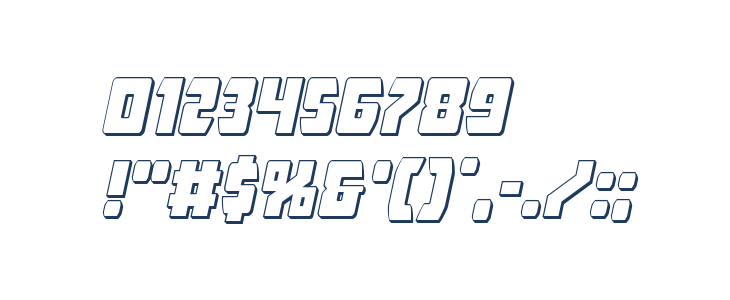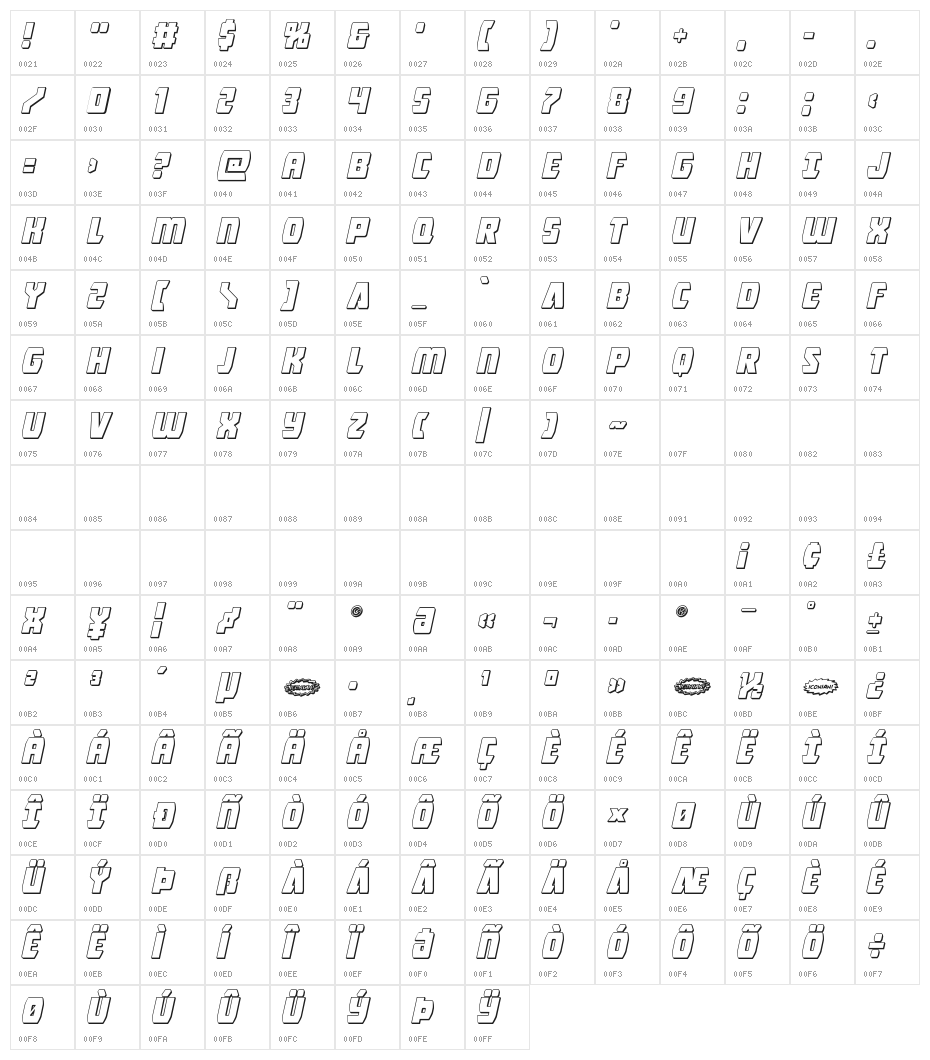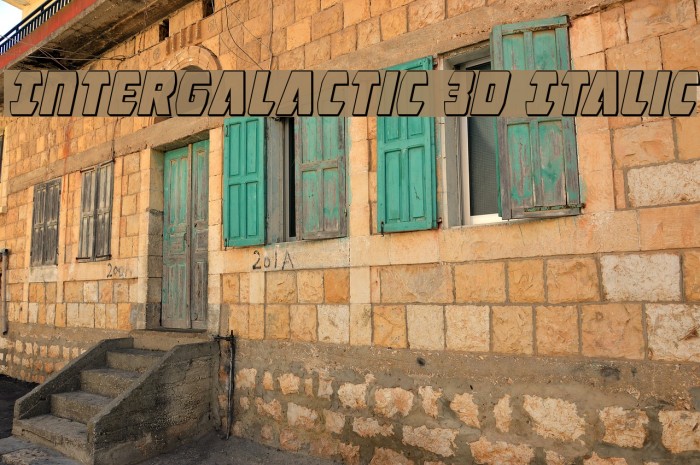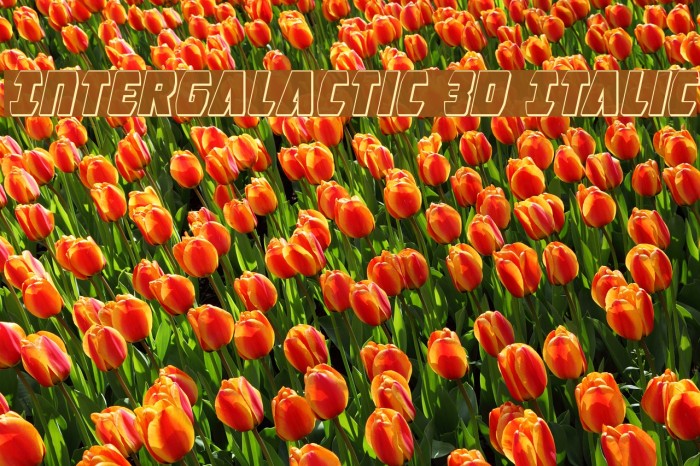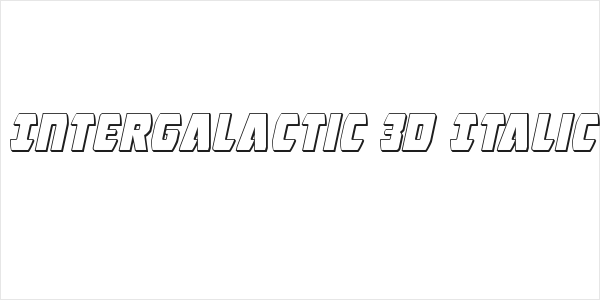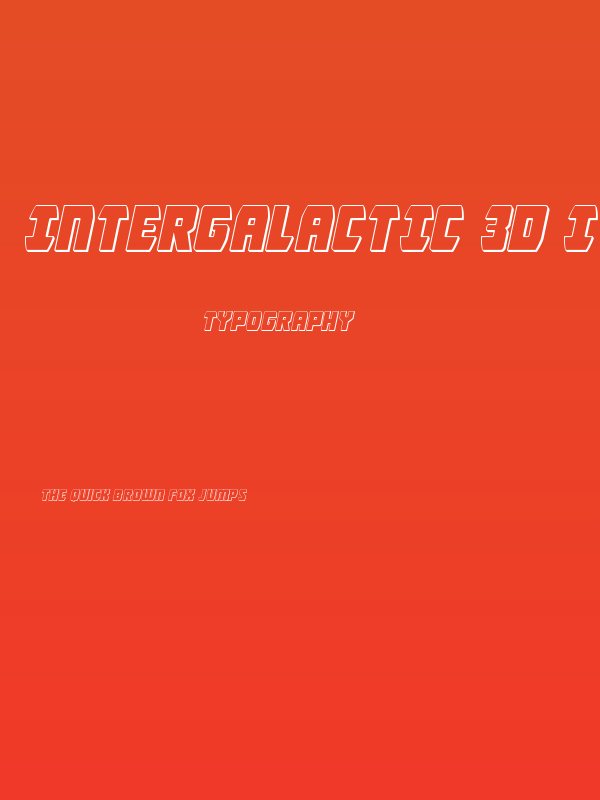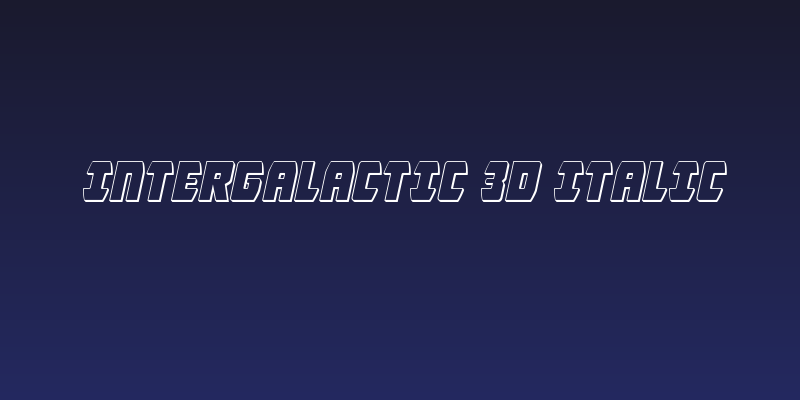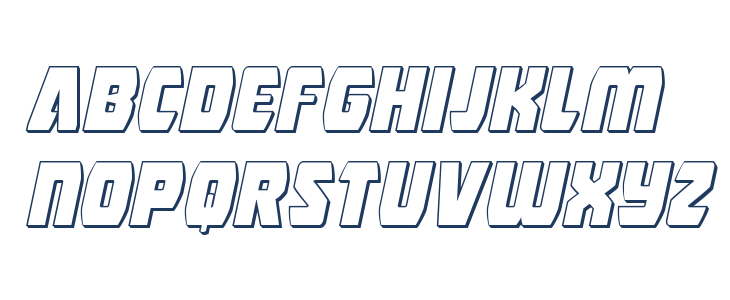
Intergalactic 3D Italic Font
Intergalactic 3D Italic Description
This font features a bold, three-dimensional appearance with an italic slant, giving it a futuristic and dynamic look. The characters are outlined, creating a sense of depth and movement. The uppercase and lowercase letters maintain a consistent style, with sharp angles and geometric shapes. The numbers and special characters follow the same design principles, ensuring uniformity across the font. Its unique style makes it stand out, ideal for projects that require a modern and eye-catching typeface.
| Proposed Projects | Ideal for sci-fi themed projects, video game titles, posters, and branding that requires a modern and striking appearance. |